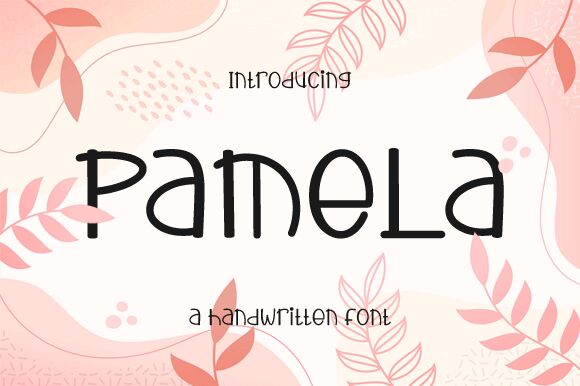
Pamela
Pamela, crafted by Nirmala Creative, is a display font that exudes confidence and flair. Its bold strokes and clever use of negative space present a modern and stylish aesthetic that captures attention. The letters boast a playful dance between curves and sharp angles, giving Pamela a dynamic personality that's both approachable and sophisticated.
This font's charm lies in its versatility—perfect for branding projects, magazine headlines, or any design seeking to make a statement. The distinctive style of Pamela ensures it stands out in logos, promotional materials, and eye-catching advertisements. With its unique blend of elegance and contemporary design, Pamela is poised to elevate any creative endeavor it graces.